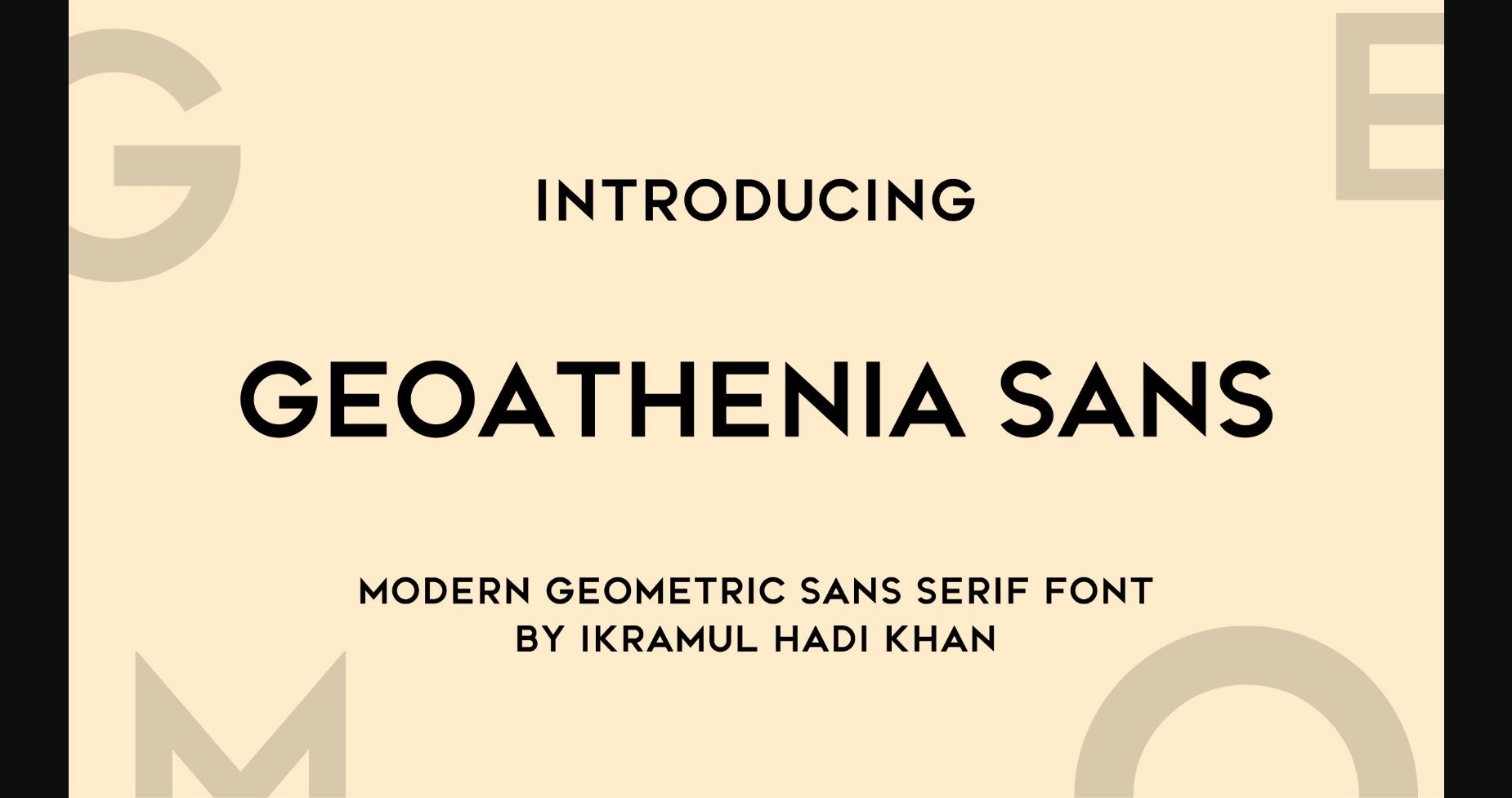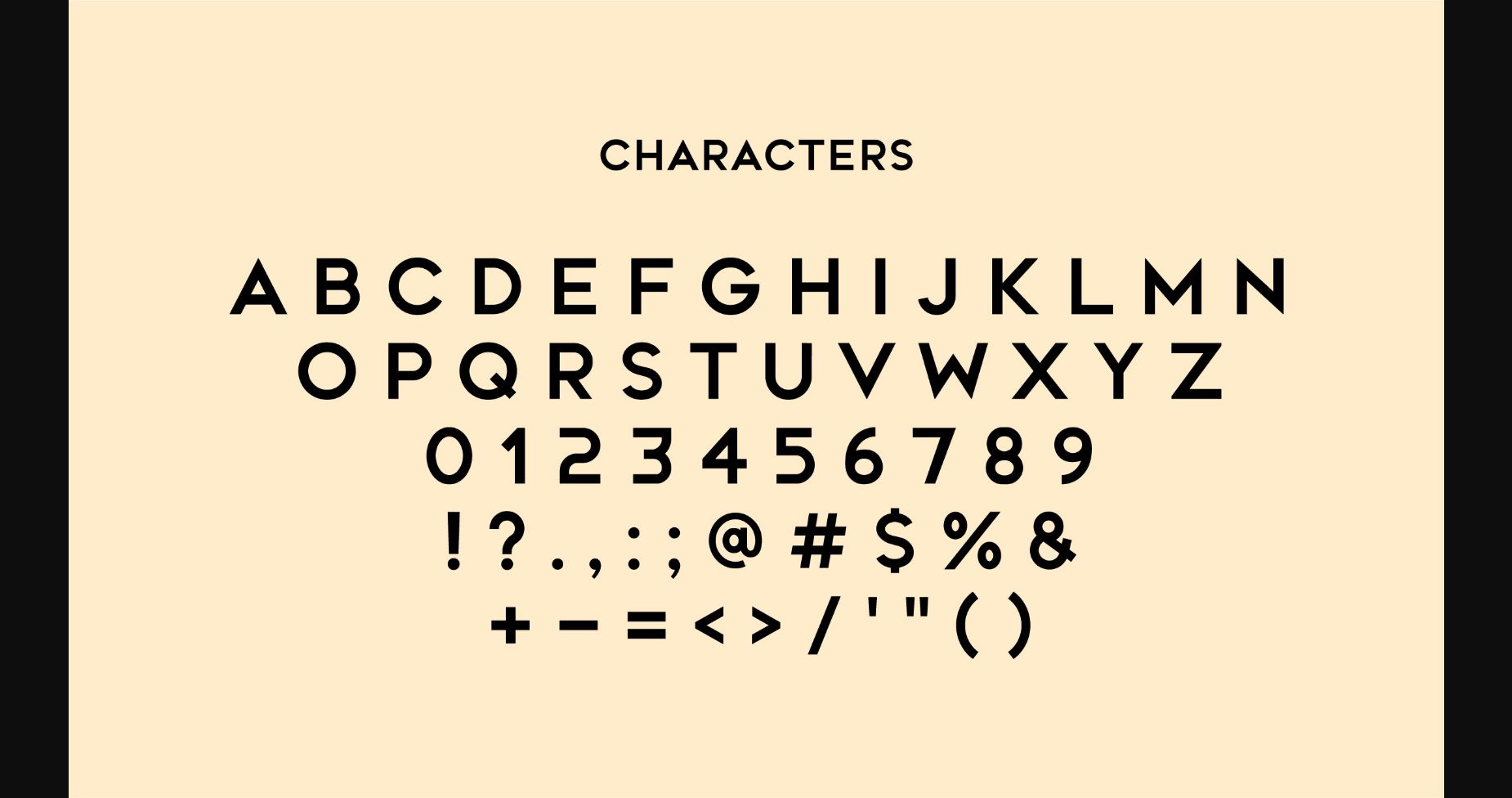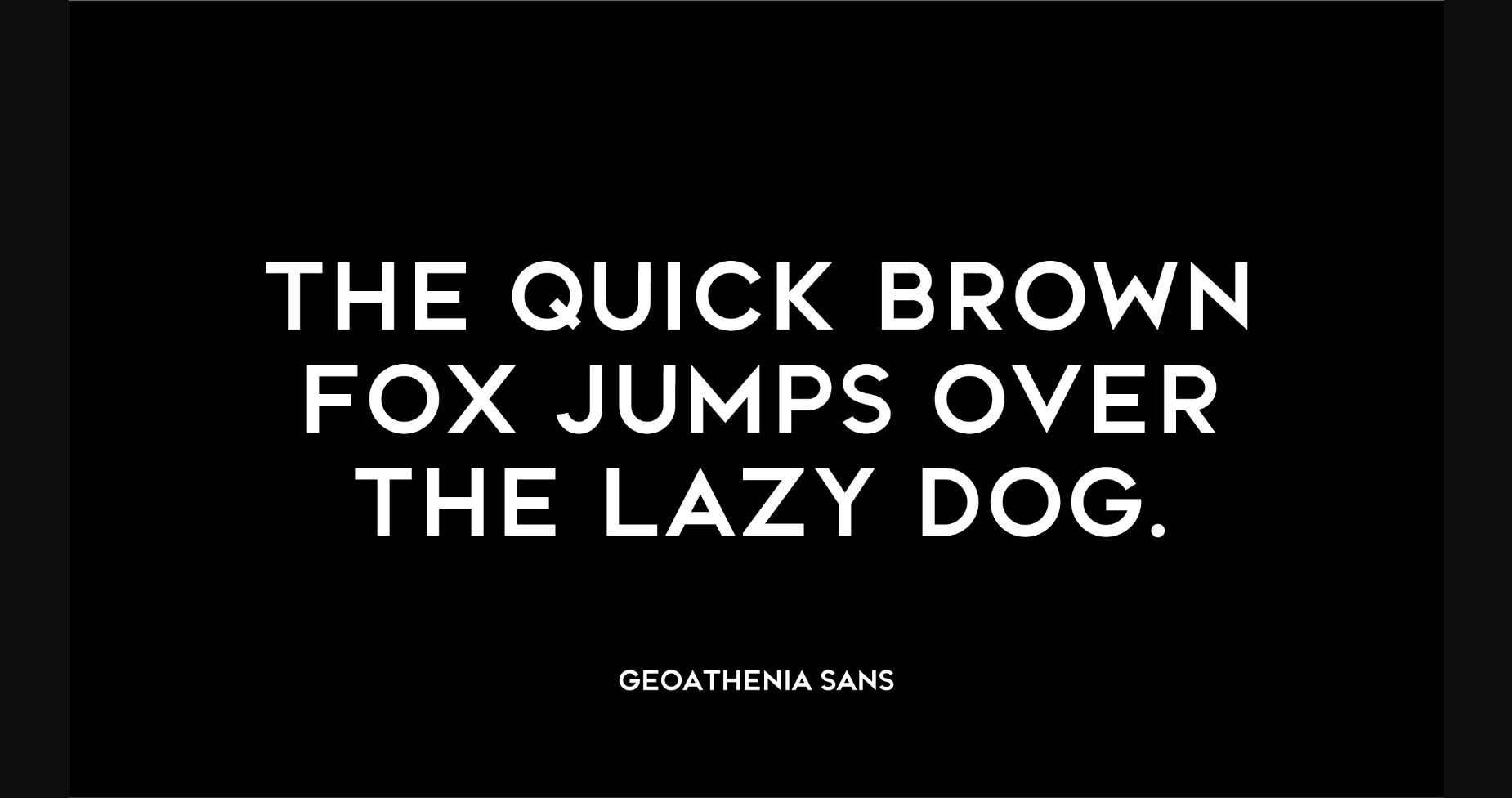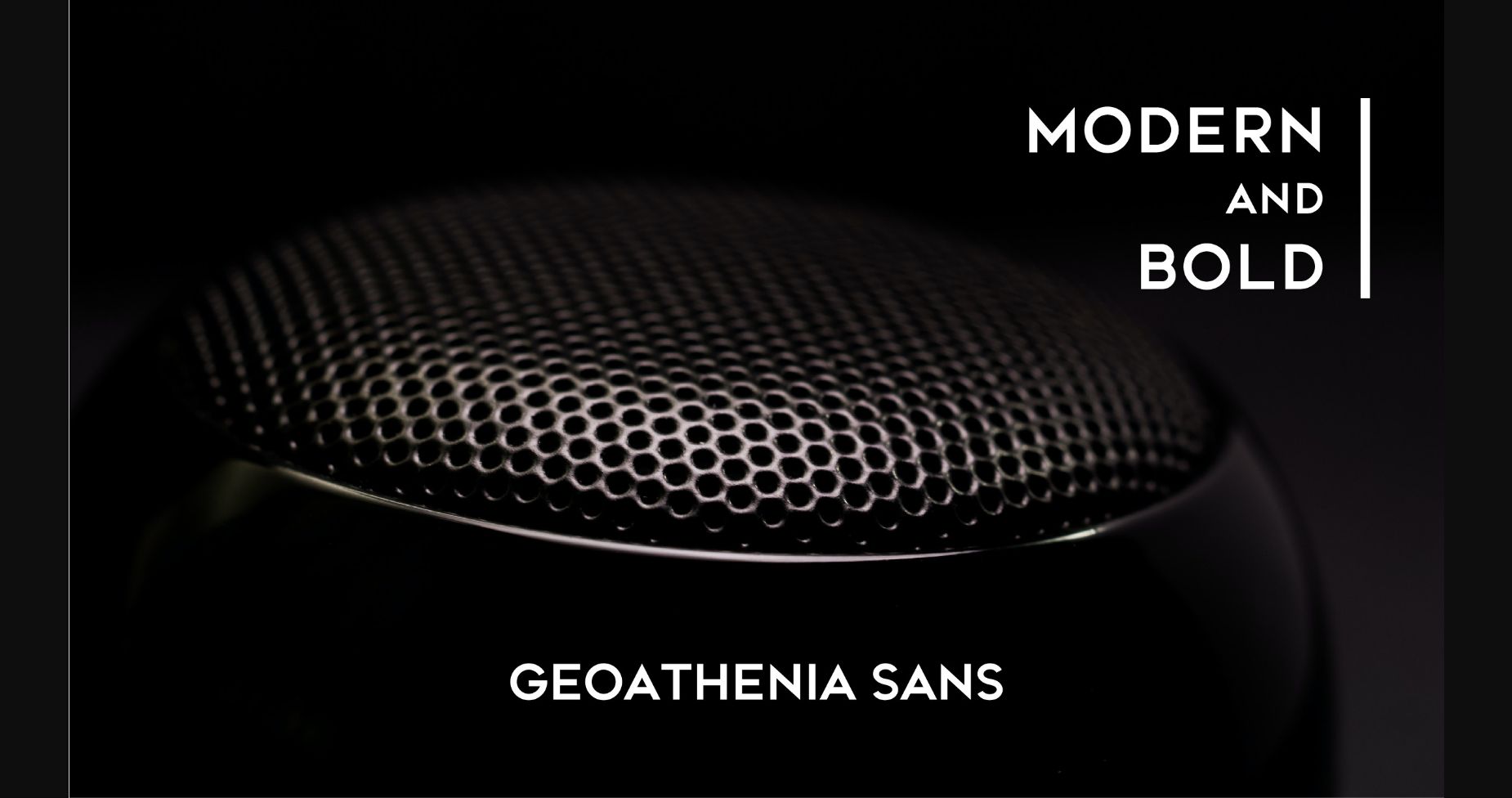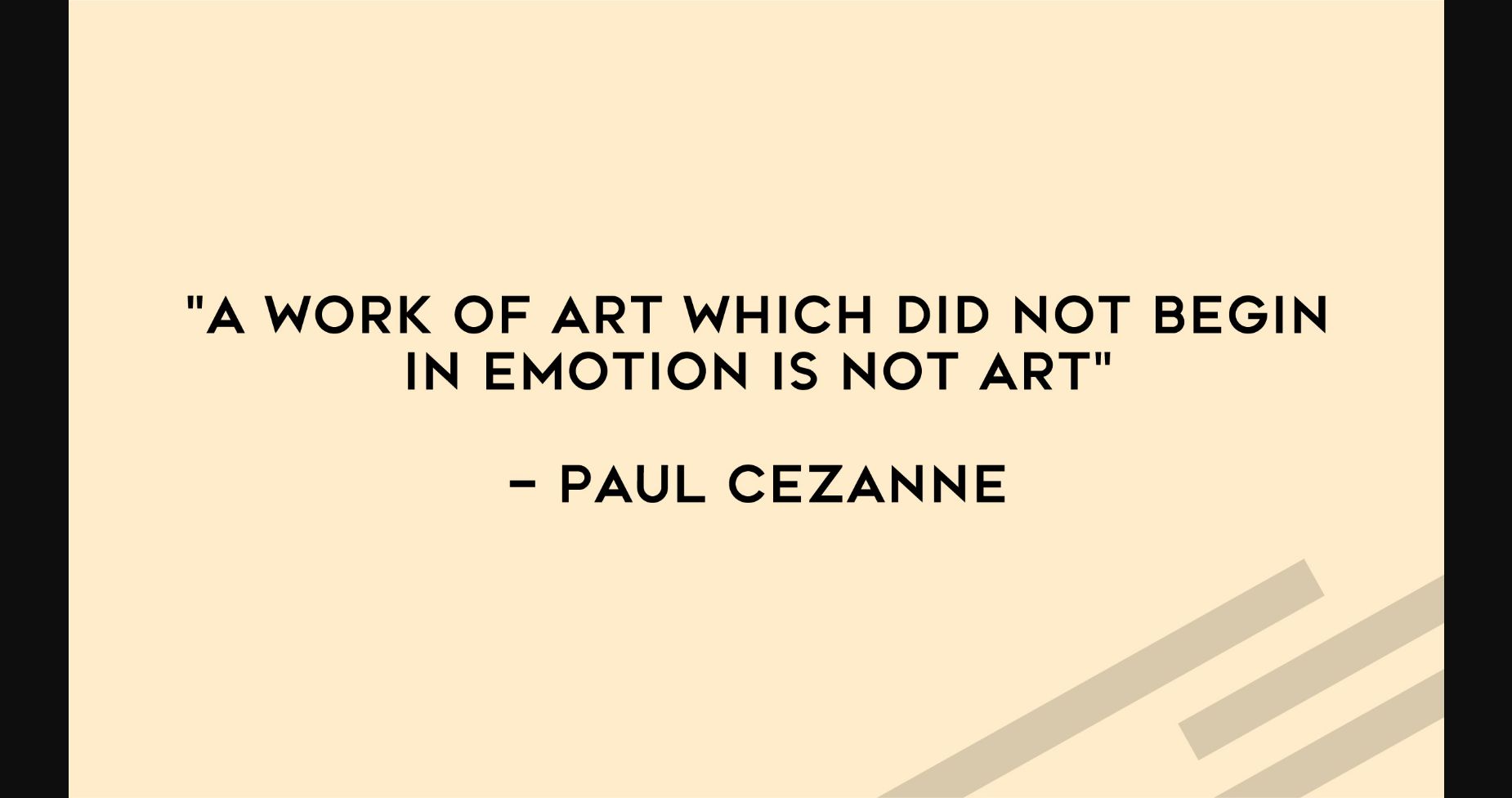
Geoathenia Sans Font
About Geoathenia Sans Font
Geoathenia Sans is a minimal and authentic sans serif font. It can easily be matched to an incredibly large set of projects, so add it to your creative ideas and notice how it makes them stand out!